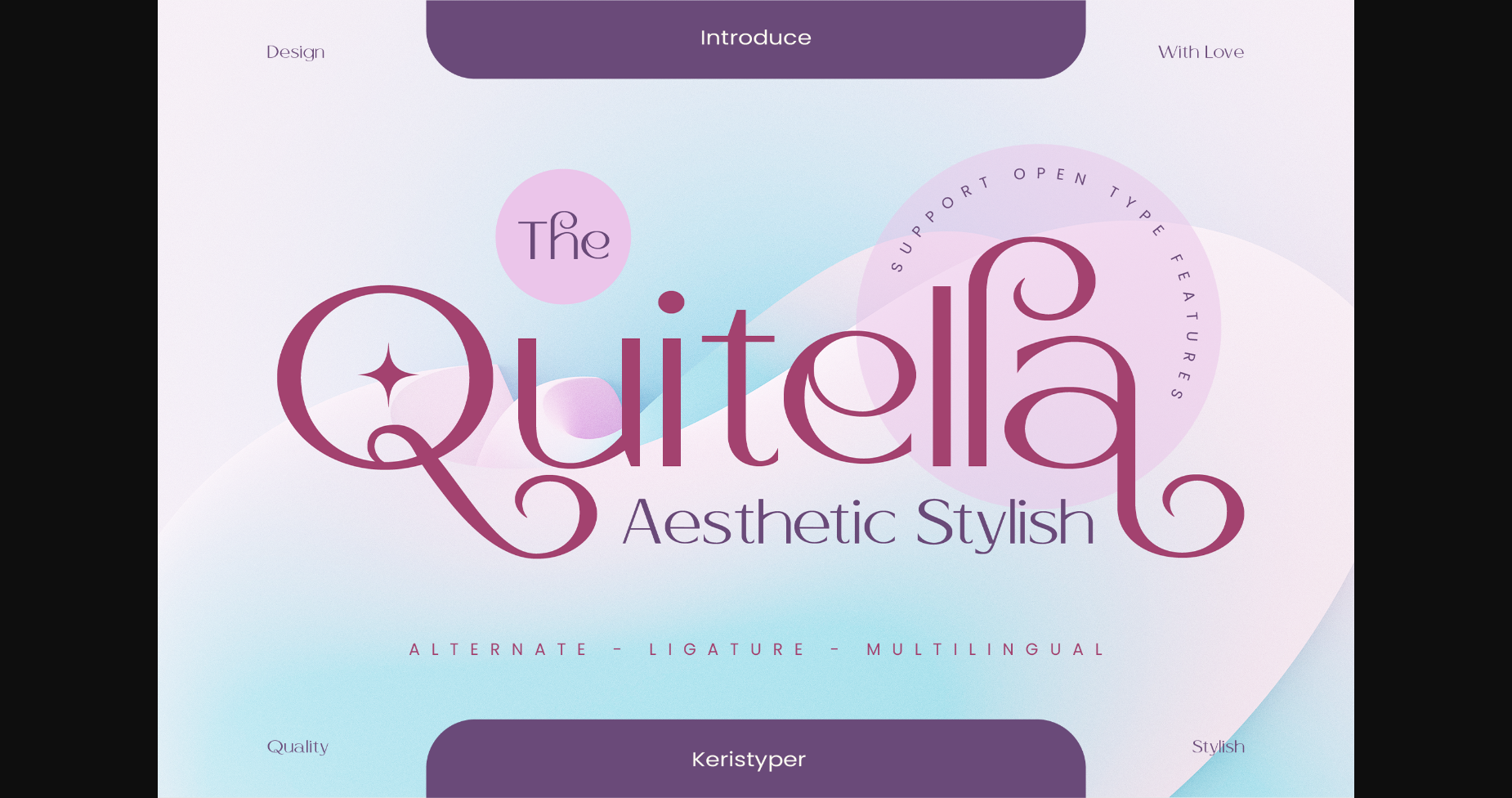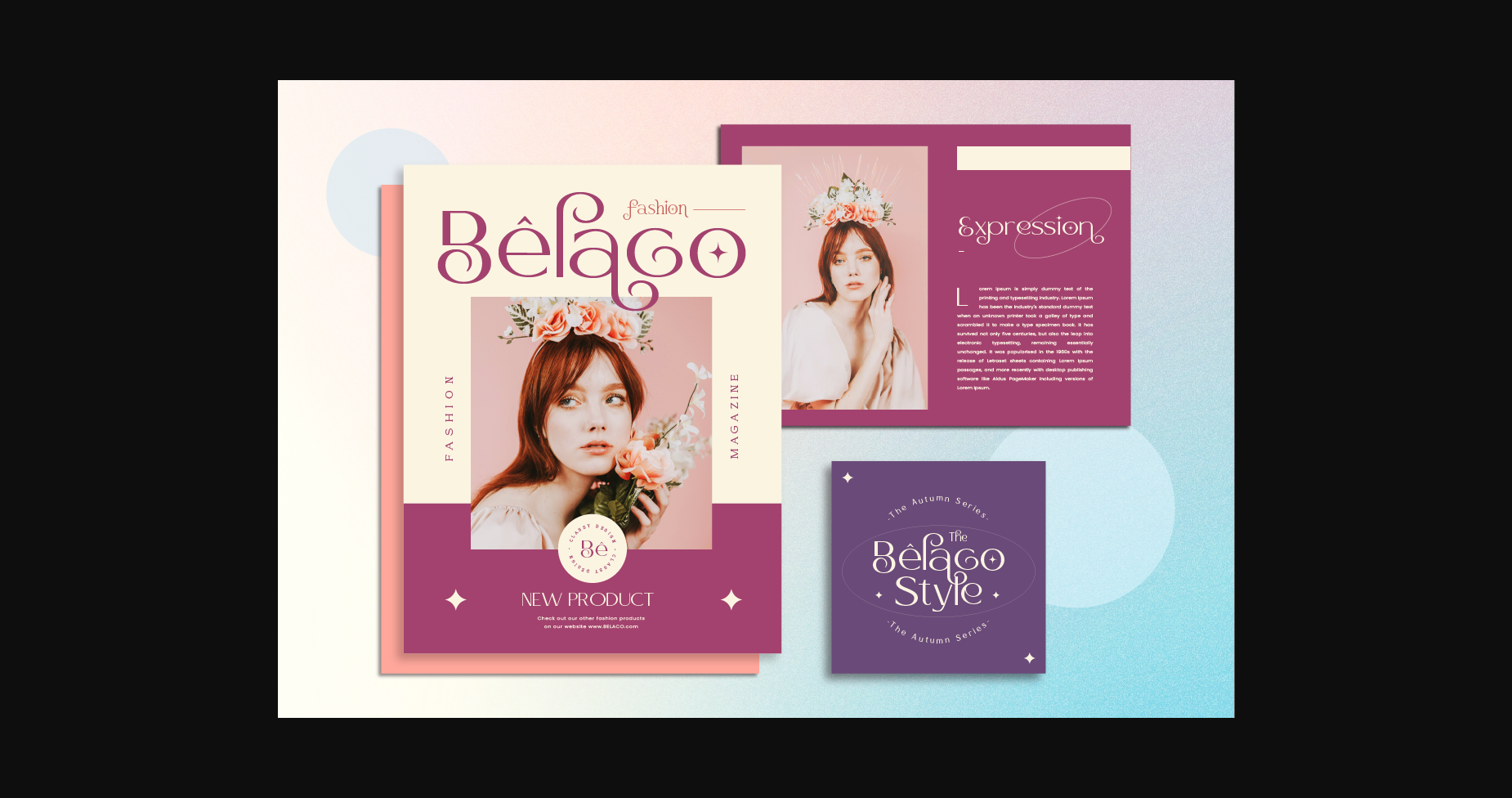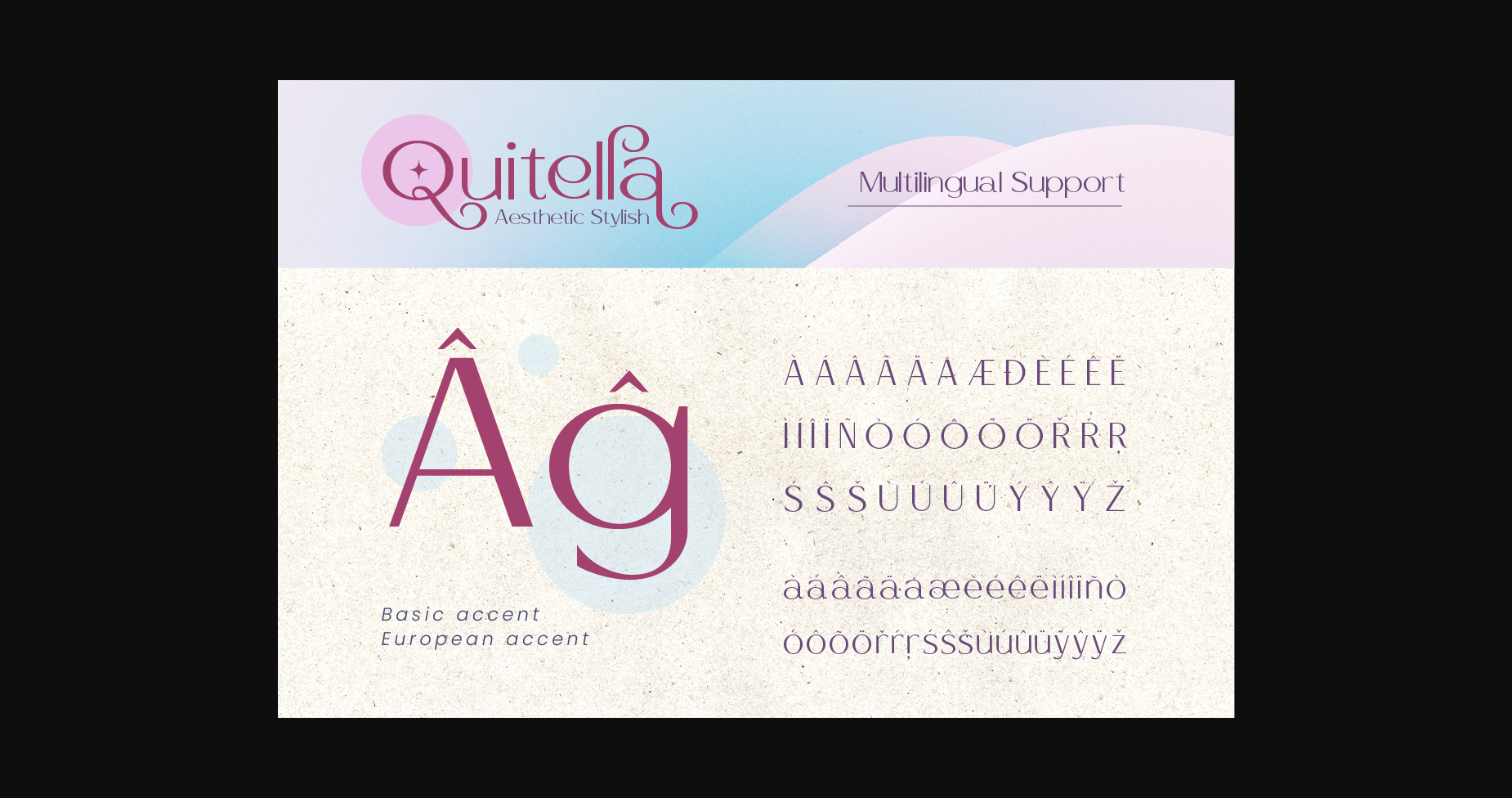
About Quitella Font
Quitellafont is a perfect blend of aesthetic and style, designed to add a touch of elegance to any project. Whether used for branding, invitations, packaging, or any other creative endeavor, this font will elevate your work to new levels of visual appeal.